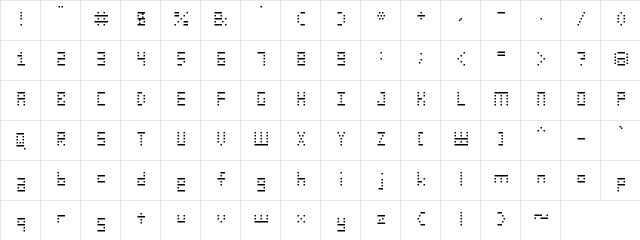
SMdot12x SMdot12x
| Designer | Kim June Young |
Design Context for SMdot12x Typeface
SMdot12x celebrates the constraints of early digital type, turning pixel geometry into a distinctive and immediately recognisable style.
A natural choice for retro game titles, chiptune music branding, 8-bit UI, and digital nostalgia projects.